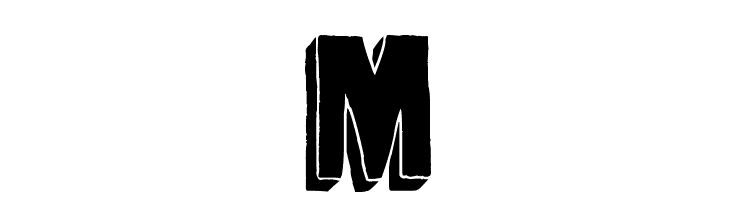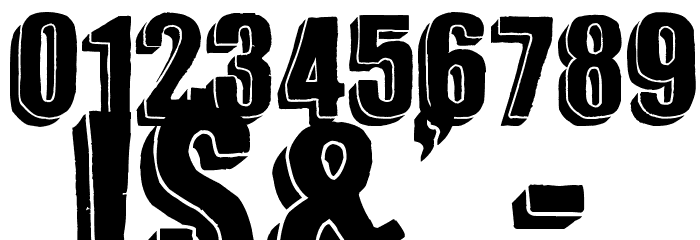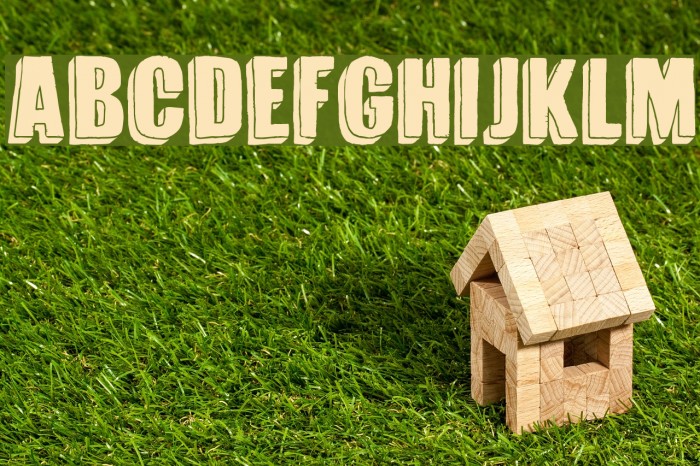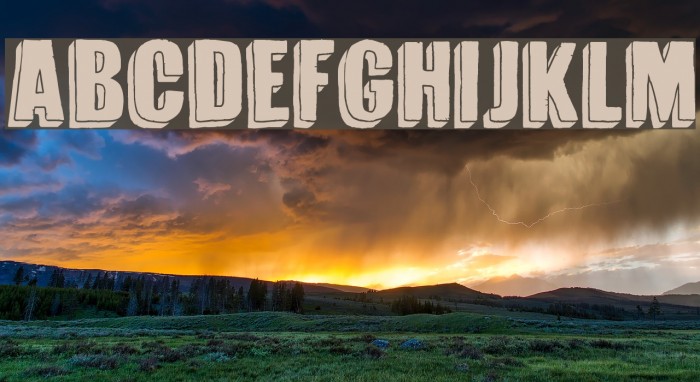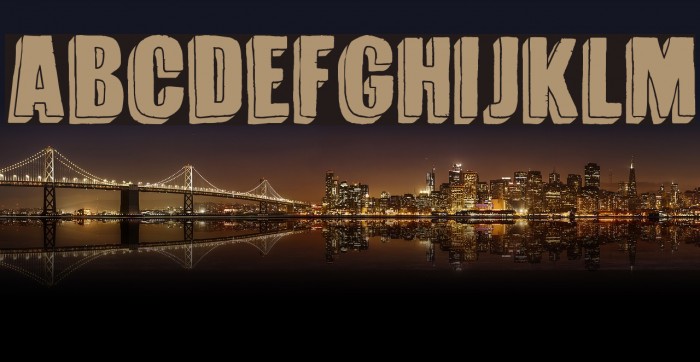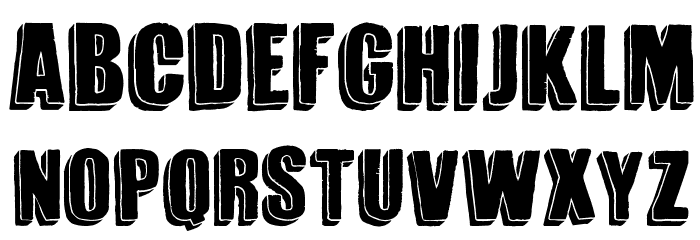
Magnifico Font
This font features a bold and impactful design with a distressed, textured appearance that gives it a vintage, rugged feel. The characters are uppercase and lowercase, with numerals and a selection of special characters. Each letter has a thick, solid form with slightly uneven edges, adding to its handcrafted look. The font's style is reminiscent of old-school posters and signage, making it ideal for projects that require a strong, attention-grabbing typeface. The boldness of the letters ensures readability while the unique texture adds character and depth.
A bold, textured font with a vintage, distressed style.
• Proposed Projects: Ideal for vintage-themed posters, branding, packaging, and signage that require a bold, eye-catching typeface.
• Category: Decorative/Display
• Bold: Yes
• Italic: No
• Weight: Bold
• Width: Normal
• Character Spacing: Normal
• Contrast: Low
• Overall Style: Vintage
• Use Case: Headlines, Logos, Posters